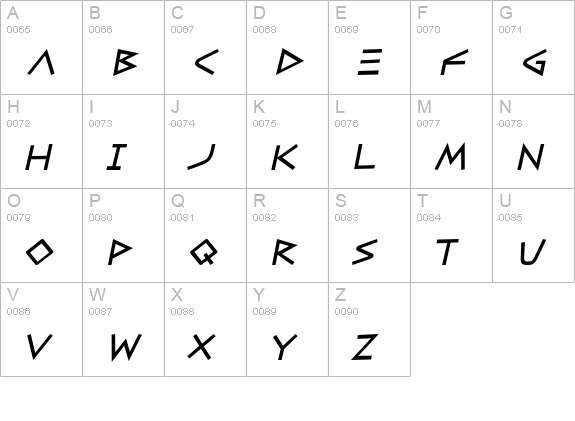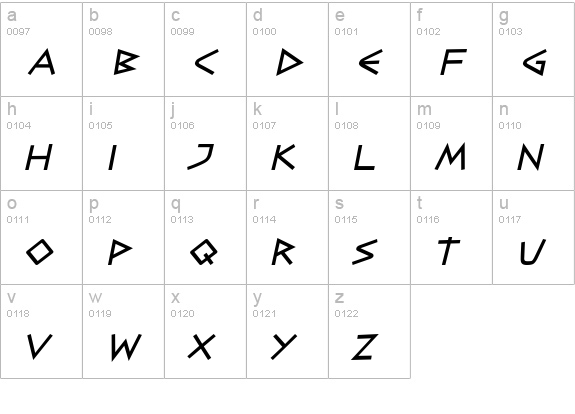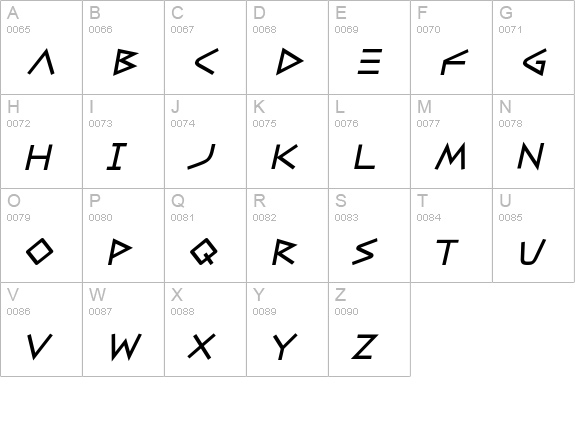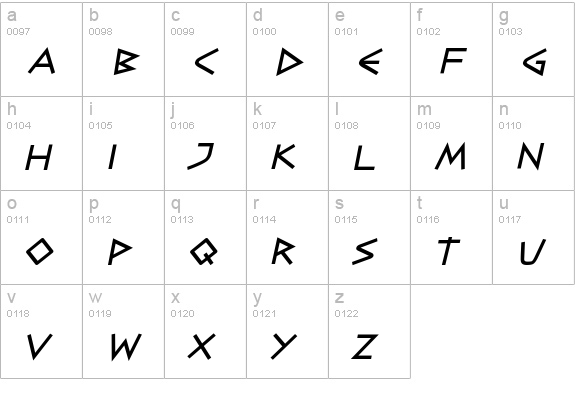
CaesarBrute BTN BoldOblique Font Details
CaesarBrute BTN BoldOblique is a stunning and powerful font that commands attention with its bold and oblique design. This font exudes confidence and adds a touch of elegance to any project it is used in. The strong and prominent letterforms make a bold statement, making it perfect for headlines, titles, and logos. The unique combination of boldness and slanted angles give CaesarBrute BTN BoldOblique a sense of movement and dynamism, making it stand out from other fonts. It is versatile and can be used in a variety of design projects, whether it be for print or digital media. One of the best things about CaesarBrute BTN BoldOblique is that it is freely available to download at FontsMarket.com. This means that you can get your hands on this incredible font without any cost. Whether you are a professional designer or a casual enthusiast, having access to high-quality fonts like CaesarBrute BTN BoldOblique can greatly enhance your creative work. So, don't miss out on the opportunity to add this bold and eye-catching font to your collection. Visit FontsMarket.com today and download CaesarBrute BTN BoldOblique for free. Let your designs shine with this powerful and captivating font.